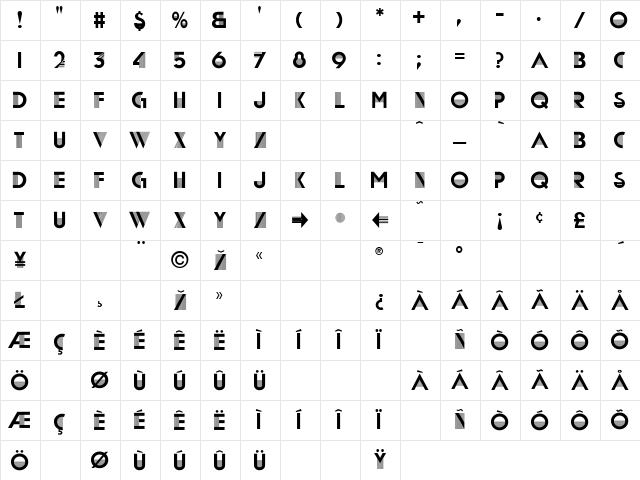
Matra Normal Free Font
Matra Normal
Matra Family
Design Context for Matra
Matra is a composed and adaptable typeface that performs quietly and consistently across a wide range of design contexts.